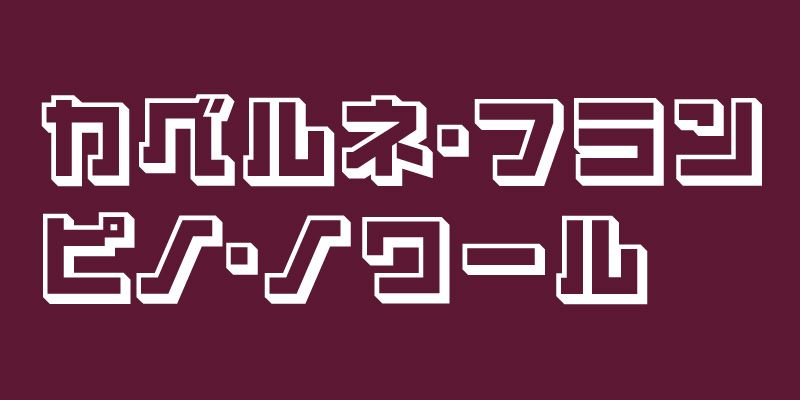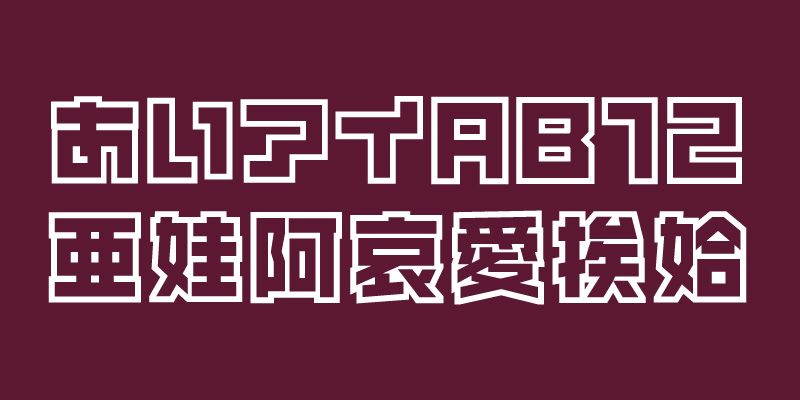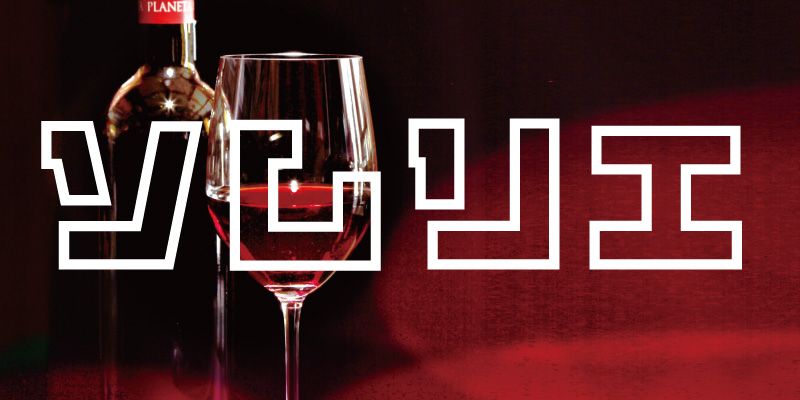
VDL-LineG-pop is a decorative typeface family based on the design of VDL-LineG.
The typeface family is composed of VDL-LineG-pop-FutoLine, whose outlines are emphasized, and VDL-LineG-pop-Shadow, whose outlines have shaded shadows with a 3-D effect.
As a display font, each font contains 9,354 glyphs (based on the Adobe-Japan1-3 Character Collection).
This typeface will allow the user to create a wide range of works with visually impactful expression in the fields of editing of publications, POP display designs, image editing and video content production.